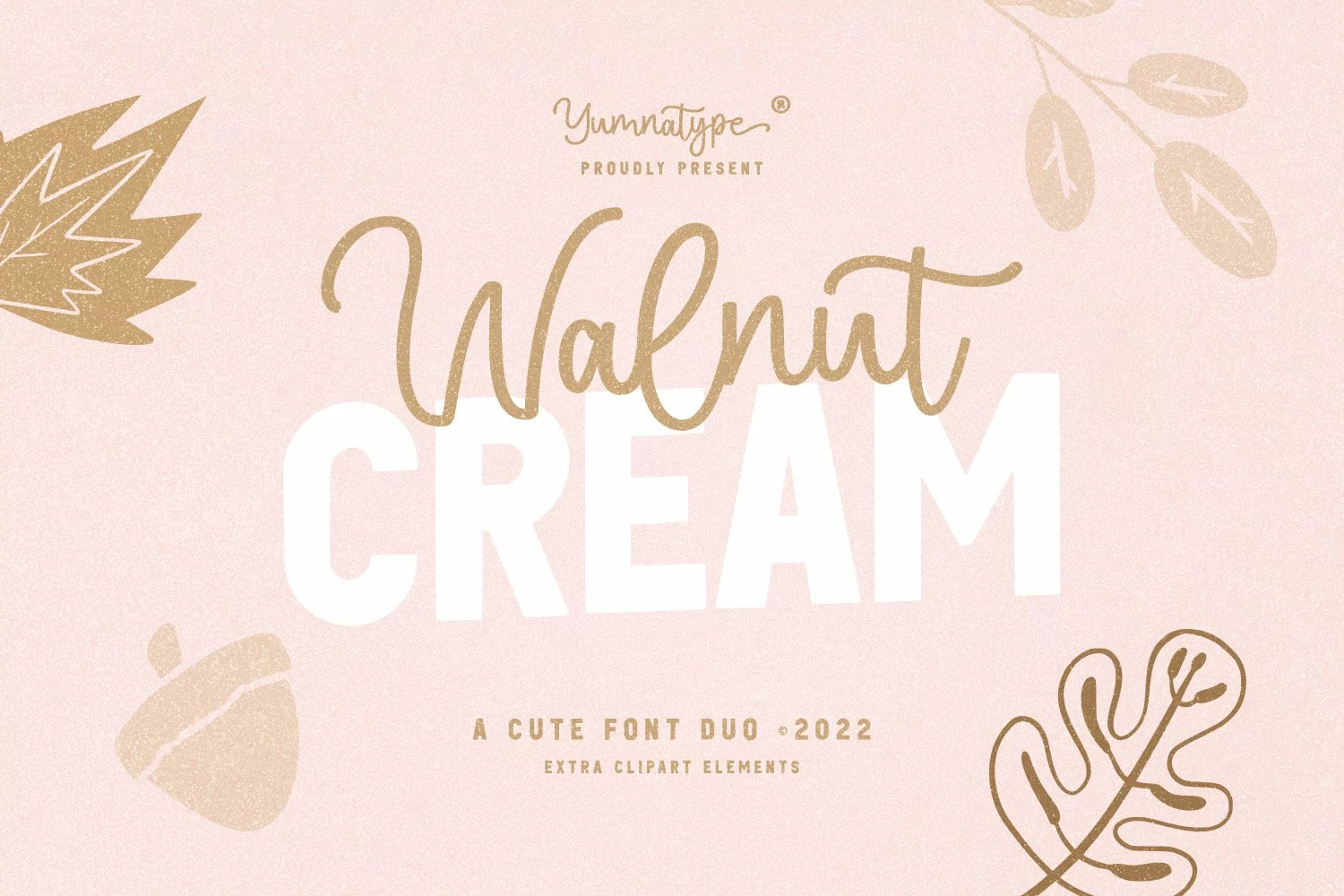
Walnut Cream
The cute elegant Walnut Cream is a great combination of the handcrafted script font and the uppercase display font to beautify your designs. The script style brings your design to delve deep into the world of elegance, while the display font generates modern look. As a result when you use it together, it would be magnificent set. Furthermore, this font duo also offers a special extras i.e. 15 illustrations in total.
- Stylistic Sets
- Swashes
- Multilingual Supports
- Uppercase and lowercase
- PUA Encoded
- Numerals and Punctuations
This font would works well on your branding, logos, social media quotes, stickers, posters, wall art, merchandise, social media, and many more. Get more inspiration about how to use it by seeing the font preview.